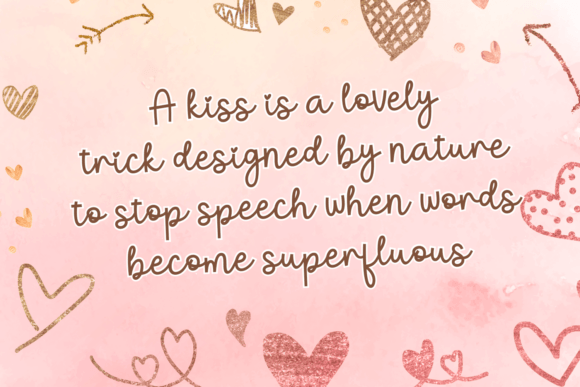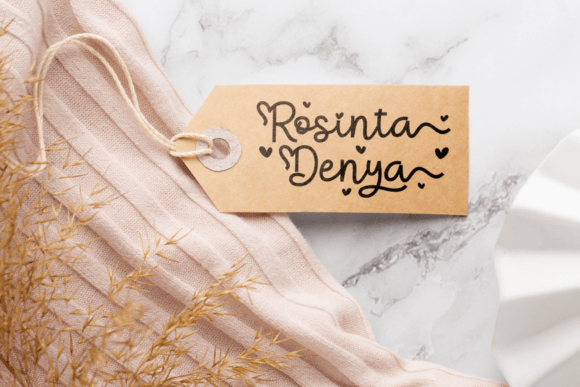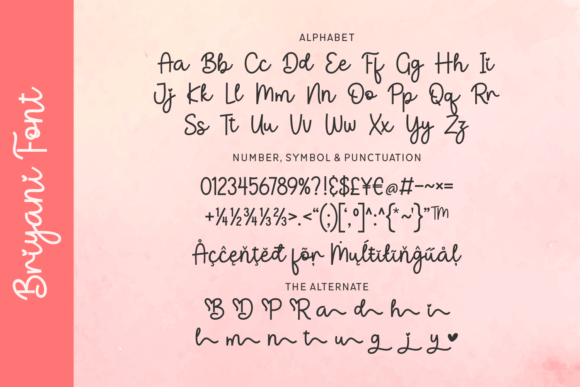
Adding a Touch of Love to Your Designs
Have you ever found yourself sitting at your desk, staring at a blank canvas, trying to come up with the perfect idea for a Valentine’s Day project? The pressure to create something romantic and special can be overwhelming, but what if you had the perfect tool to help you bring your vision to life?
Enter the delightful Briyani Font, a monoline script font that exudes a playful and charming charm. With its heart accents and smooth curves, this font is designed to add a touch of love and warmth to any project. Whether you’re creating love letters, wedding invitations, or social media graphics, the Briyani Font is the perfect companion to help you express your creativity.
As a designer, you know how valuable it is to have a versatile and endearing font in your arsenal. The Briyani Font is perfect for adding a personal touch to your designs, and its digital and print capabilities make it a must-have for any project.
Briyani Font Key Features
- Font Family: Briyani is a modern script font family designed to evoke a sense of elegance and sophistication.
- Font Size: The font family includes a range of weights, from Light to Extra Bold, allowing for flexibility in design applications.
- Resolution: Briyani Font is optimized for high-resolution displays, making it ideal for digital applications such as web design, mobile apps, and digital signage.
- Unique Characteristics: The font features a unique blend of traditional and modern elements, with intricate details and flourishes that add a touch of sophistication to any design.
Briyani Font Review
I recently had the chance to work with the Briyani Font, and I must say it’s an interesting addition to the world of typography. Here are my thoughts on what works well and what doesn’t.
- The Briyani Font has a unique and exotic flair that’s perfect for projects that need a touch of international flair.
- The font is highly customizable, allowing designers to tweak the settings to fit their specific needs.
- The font family includes a range of weights and styles, making it easy to find the perfect fit for your project.
- The Briyani Font is not optimized for small text sizes, which can make it difficult to read in certain contexts.
- The font may not be the best choice for projects that require a clean, modern aesthetic.
- The font family is not as extensive as some other popular font families, which can limit its versatility.
Overall, the Briyani Font is a solid choice for designers looking to add a unique touch to their projects. While it has its limitations, it’s a great option for projects that require a more exotic or international feel. With a little creativity and customization, the Briyani Font can be a real showstopper.
Tip: Use the Briyani font for headings and titles to add a touch of elegance to your designs.
Tip: Use the Briyani font for typography-heavy designs, such as posters or brochures.
Tip: Use the Briyani font for presentations and reports to add a touch of sophistication.
The Briyani font is ideal for:
- Restaurant and cafe menus
- Formal events and galas
- Brand identity and logo design
Remember to use the Briyani font consistently throughout your design to create a cohesive look and feel.